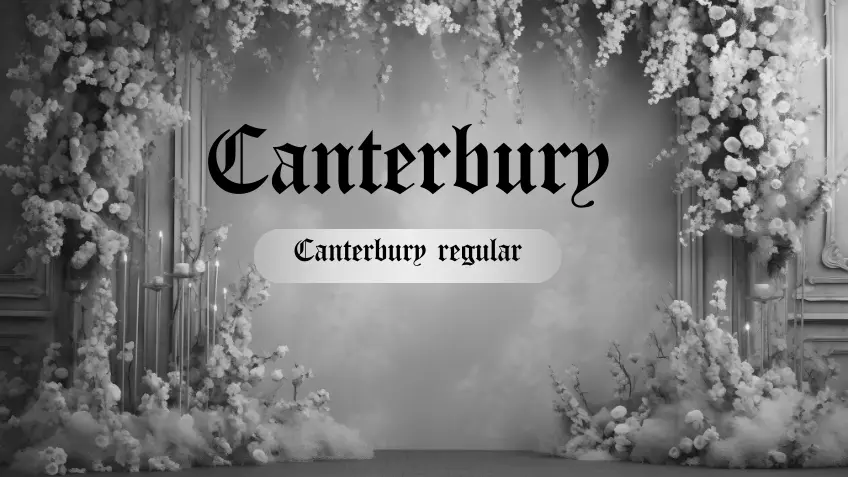
The font Canterbury Regular, designed by Typographer Mediengestaltung, falls under the Display, Serif category & Canterbury font family. Its smooth, flowing letterforms make it a versatile choice for projects that require both elegance and readability. Canterbury is particularly well-suited for Posters and Event Flyers, Invitations and Stationery, Book covers and titles and Branding and Logos. With its balance of simplicity and decorative appeal, this font brings a polished touch to both personal and professional designs.